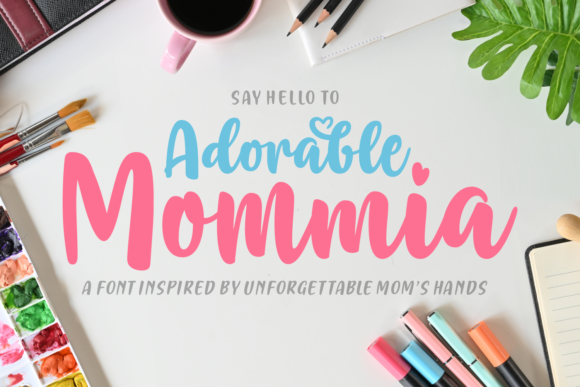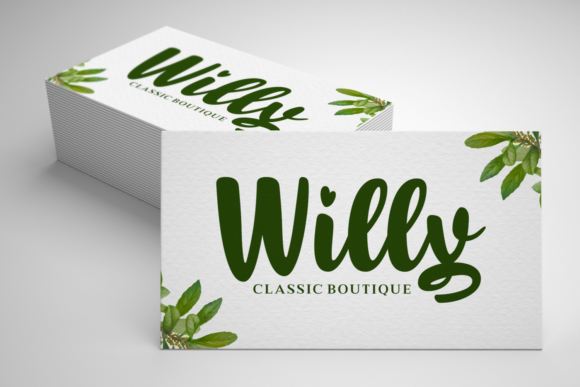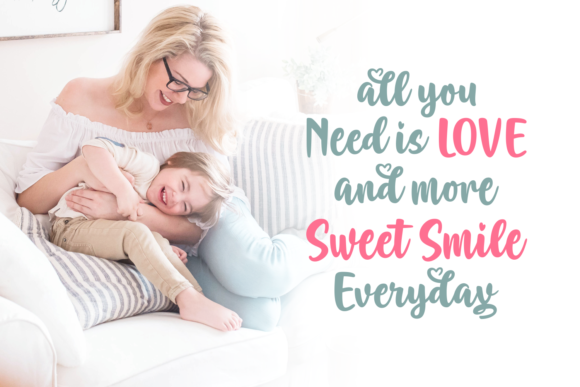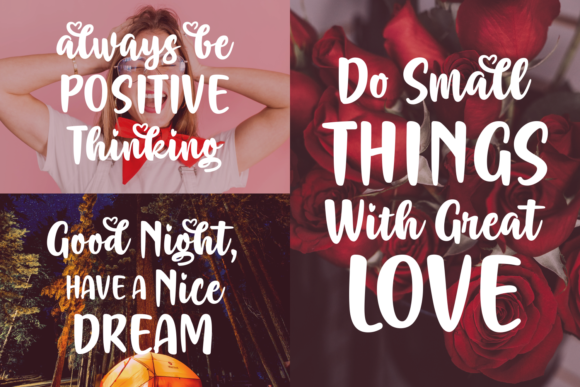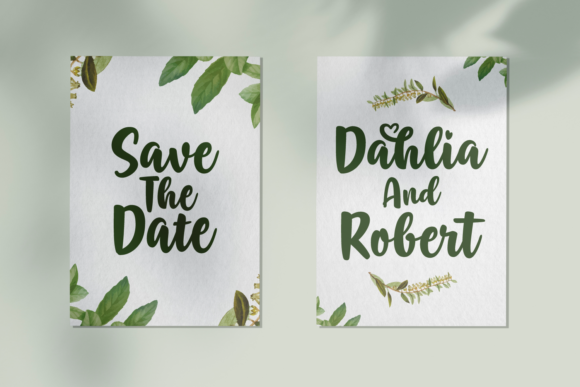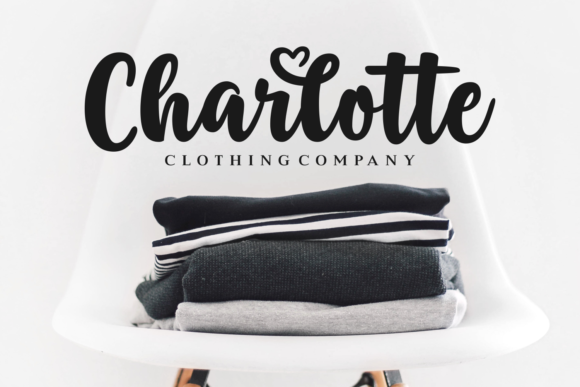
Adorable Mommia Font
About Adorable Mommia Font
Adorable Mommia is a funny and cute handwritten font with a joyful feel. Use it to add a whimsical twist to any design project.